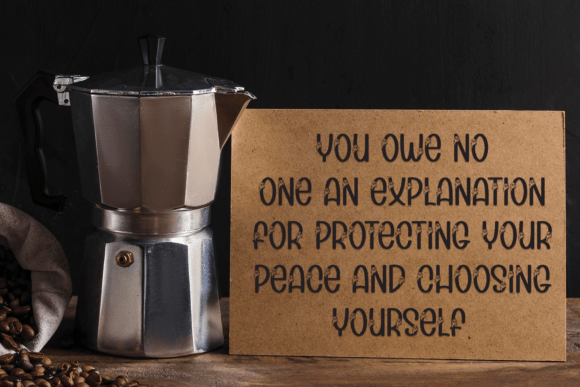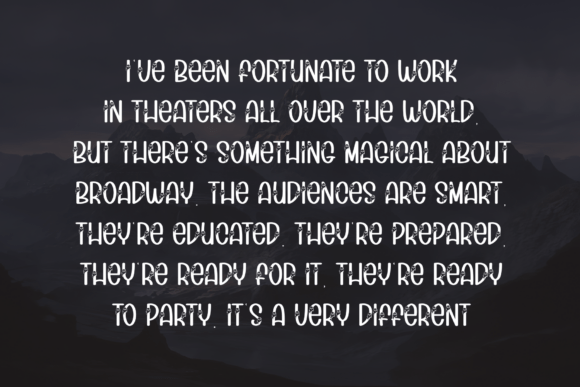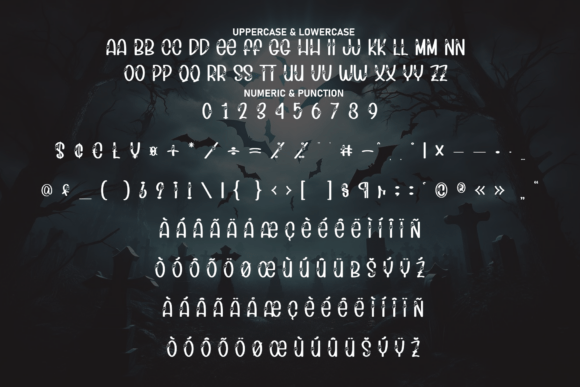
Introduction to Preppy Spooky Font
As a designer, have you ever found yourself struggling to add that perfect touch of whimsy to a project? Perhaps you’re crafting a wedding invitation and want to make it stand out from the crowd, or maybe you’re creating a birthday card for a loved one and want to infuse it with joy and cheer. Whatever the project, I’m here to introduce you to the perfect design resource: the Preppy Spooky Font.
This charmingly handwritten display font is more than just a pretty face – it’s a high-quality design asset that’s sure to elevate any creative project. With its transparent background and free download availability, you can use it to create anything from elegant wedding invites to heartwarming cards, all with a playful flair that’s sure to delight.
Key Features of Preppy Spooky Font
- High-quality, hand-drawn design for a unique and creative project
- Comes with a transparent background for seamless integration into any design
- Features a preppy and spooky aesthetic, perfect for Halloween-themed designs or spooky invitations
Honest Review: Preppy Spooky Font
I recently came across the Preppy Spooky Font and was immediately drawn to its unique blend of preppy and spooky elements. As a designer, I’m always on the lookout for high-quality design resources to elevate my creative projects. This font definitely fits the bill.
One of the things that works well with the Preppy Spooky Font is its versatility. It’s perfect for creating eye-catching titles and headings that add a touch of whimsy to any design. The font’s transparent background also makes it easy to layer over other elements, giving you a high degree of control over the final look.
The font’s preppy and spooky elements are expertly balanced, making it a great choice for a variety of creative projects, from Halloween-themed designs to more general seasonal content.
- Unique blend of preppy and spooky elements
- High-quality design with a transparent background
- Perfect for creating eye-catching titles and headings
- Great choice for a variety of creative projects
- May not be suitable for formal or professional designs
- Limited character set and font styles
- Not ideal for large blocks of text
Overall, I’m impressed with the Preppy Spooky Font. While it may have some limitations, its unique style and versatility make it a valuable addition to any designer’s toolkit. It’s definitely worth downloading for free, especially if you’re working on a creative project that requires a touch of whimsy.
Getting the Most Out of Preppy Spooky Font
To get the most out of the Preppy Spooky Font, use it in combination with other design elements that complement its spooky-preppy aesthetic. Experiment with different font sizes, colors, and arrangements to create a unique look.
The Preppy Spooky Font is ideal for Halloween-themed designs, spooky invitations, and other creative projects that require a touch of elegance and spookiness.